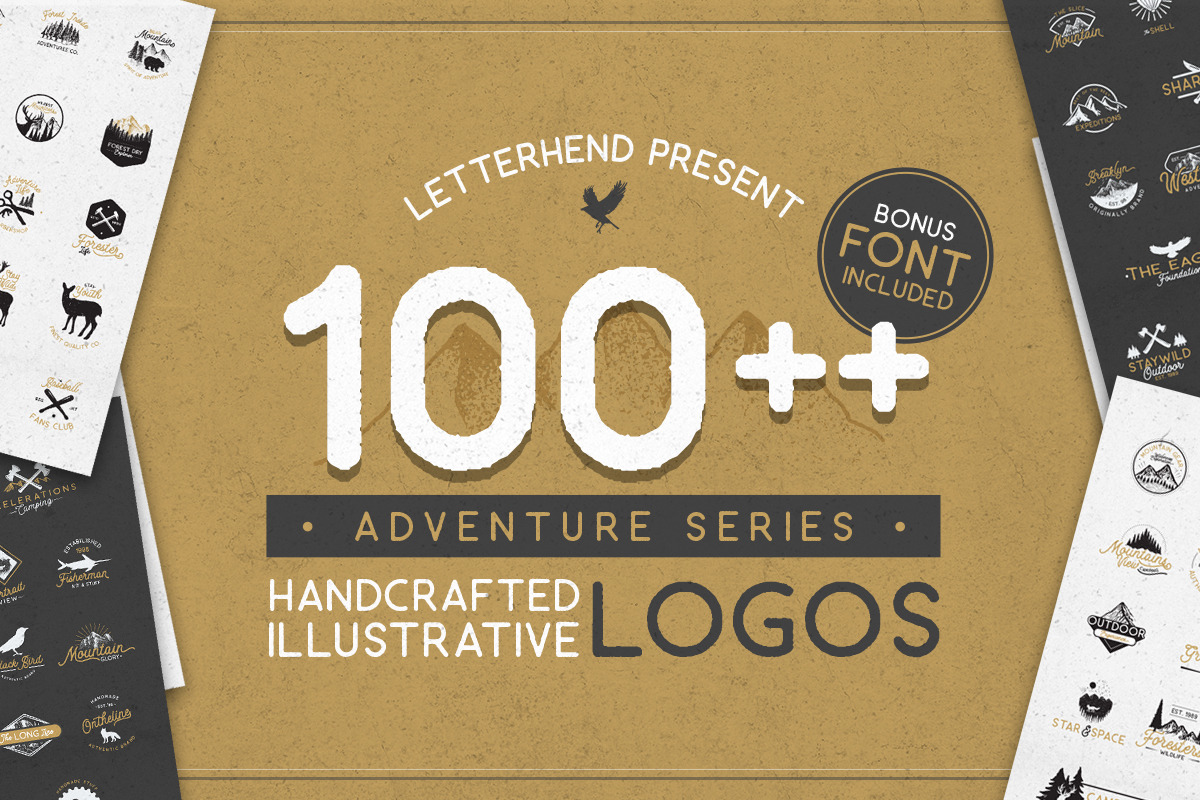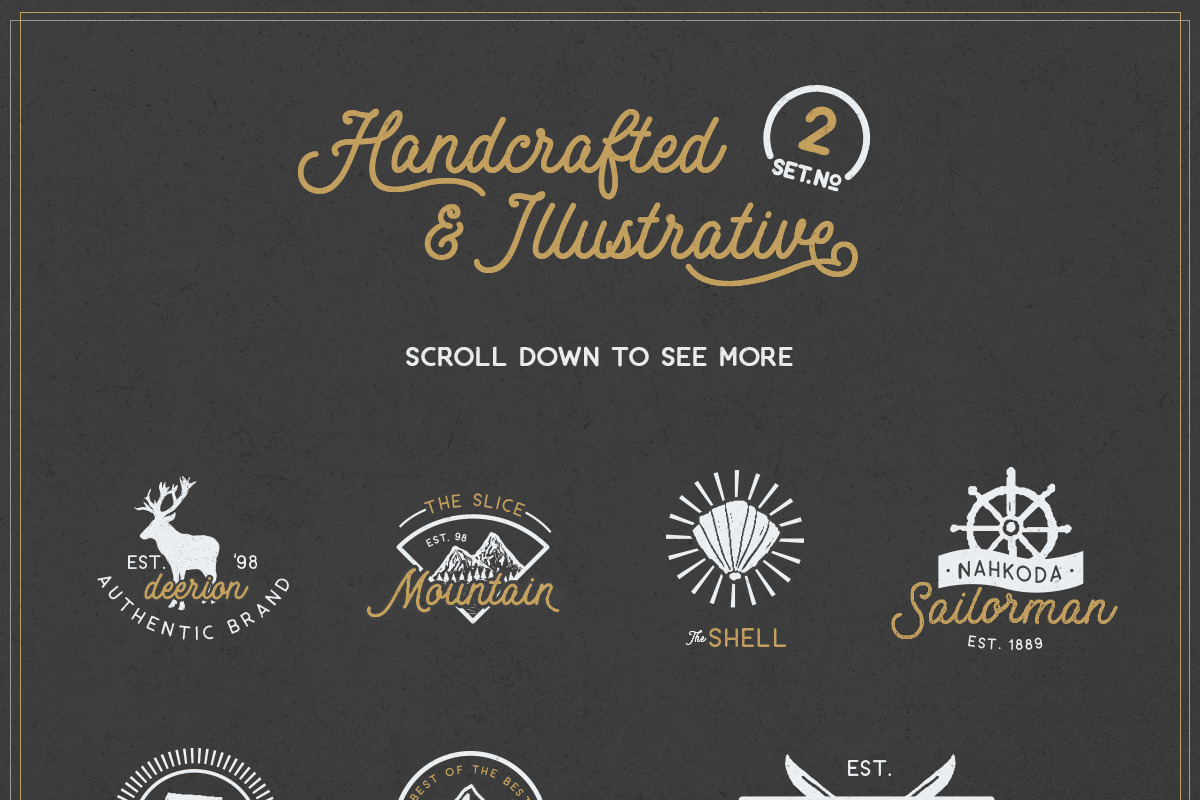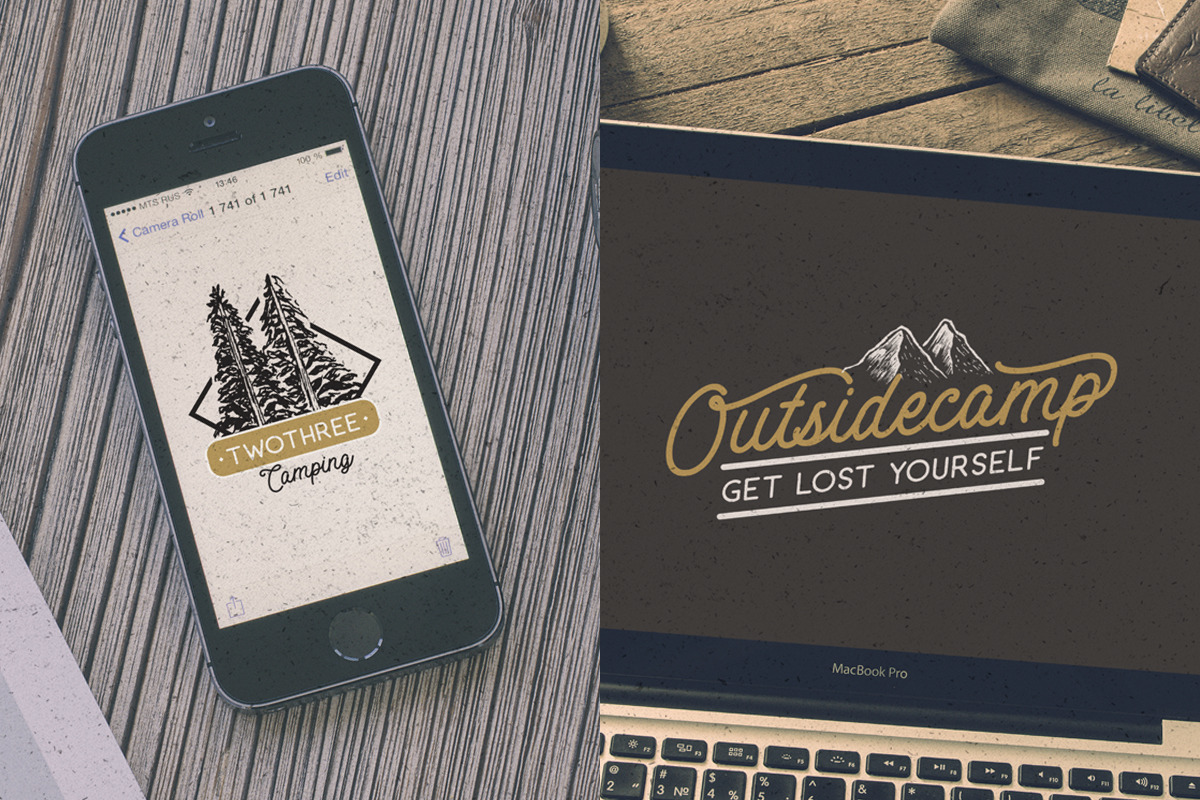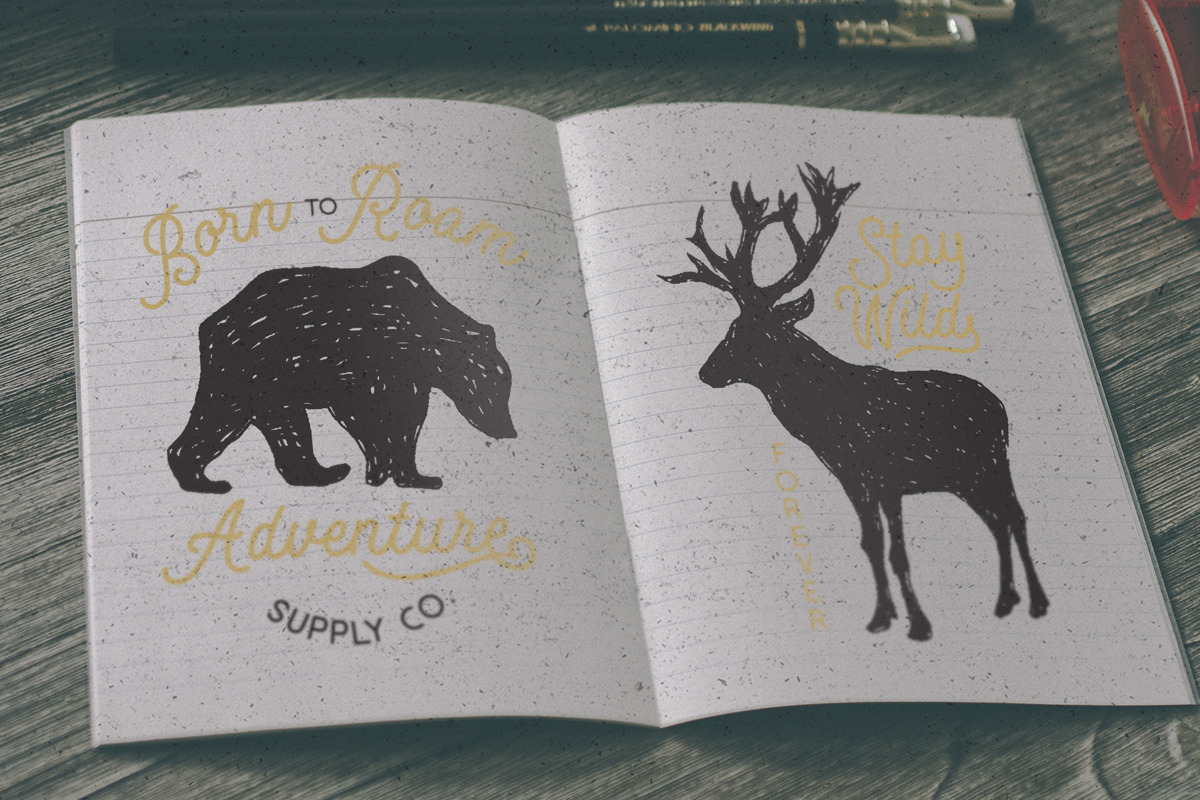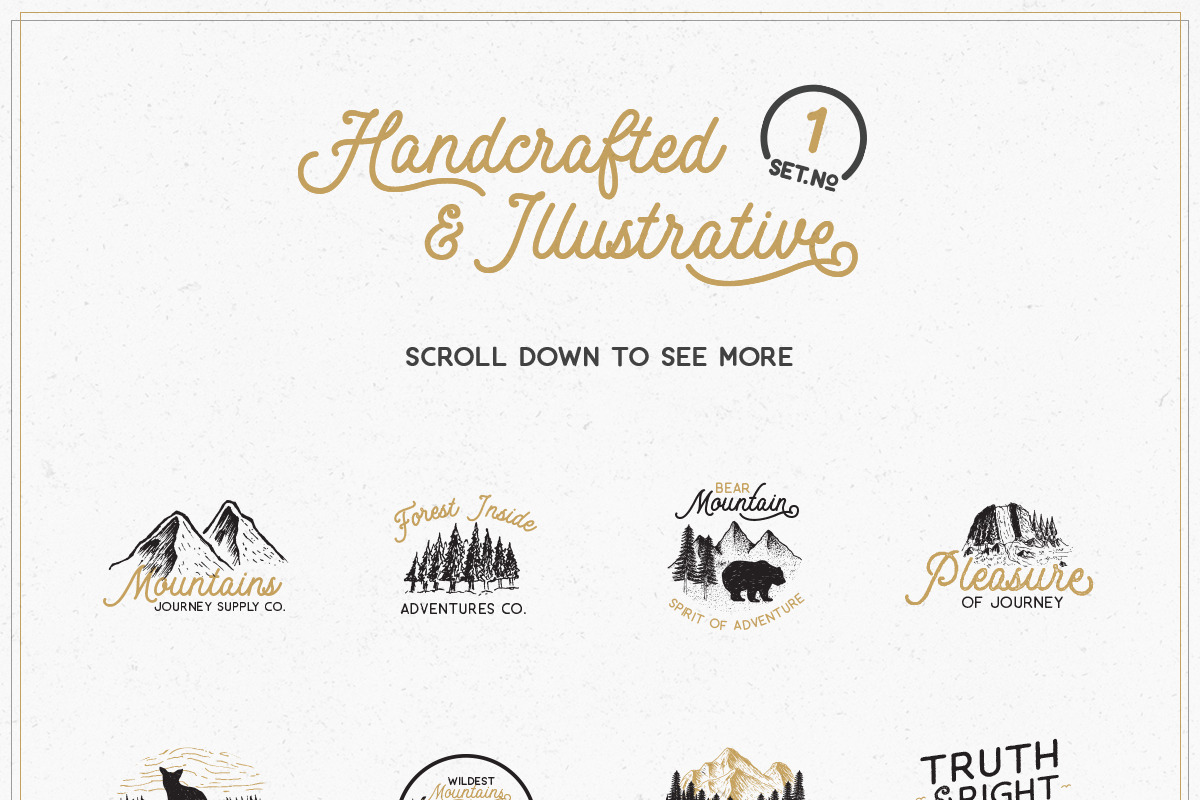
Adventure Logo Bundle
Hi, this time letterhend present illustrative logo templates which you won't find anything like this anywhere! This awesome logo packages guaranteed will give satisfaction especially to you who loves illustrative logos with rough and vintage feel.
I think that the texture is one of the qualities that makes this set unique. While the elements are rough, I think that style gives the designs a vintage feel. The included fonts pair well with the templates and are a huge plus.